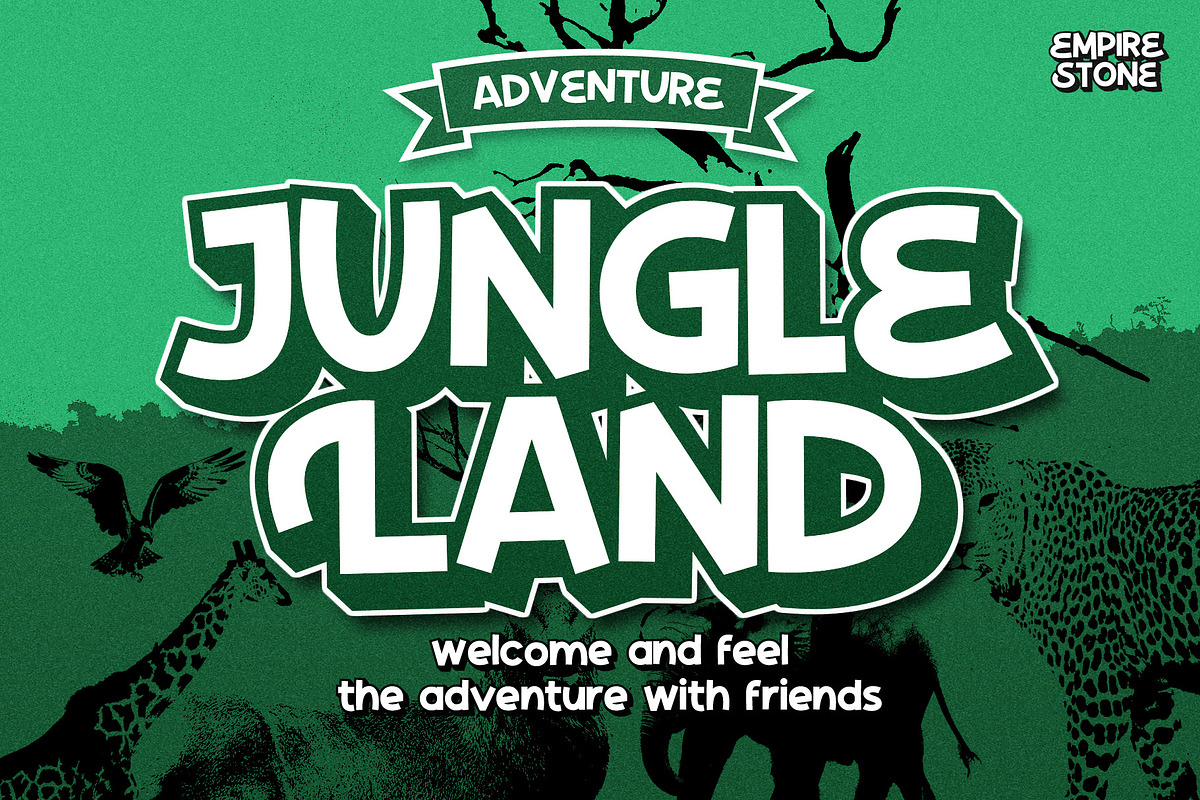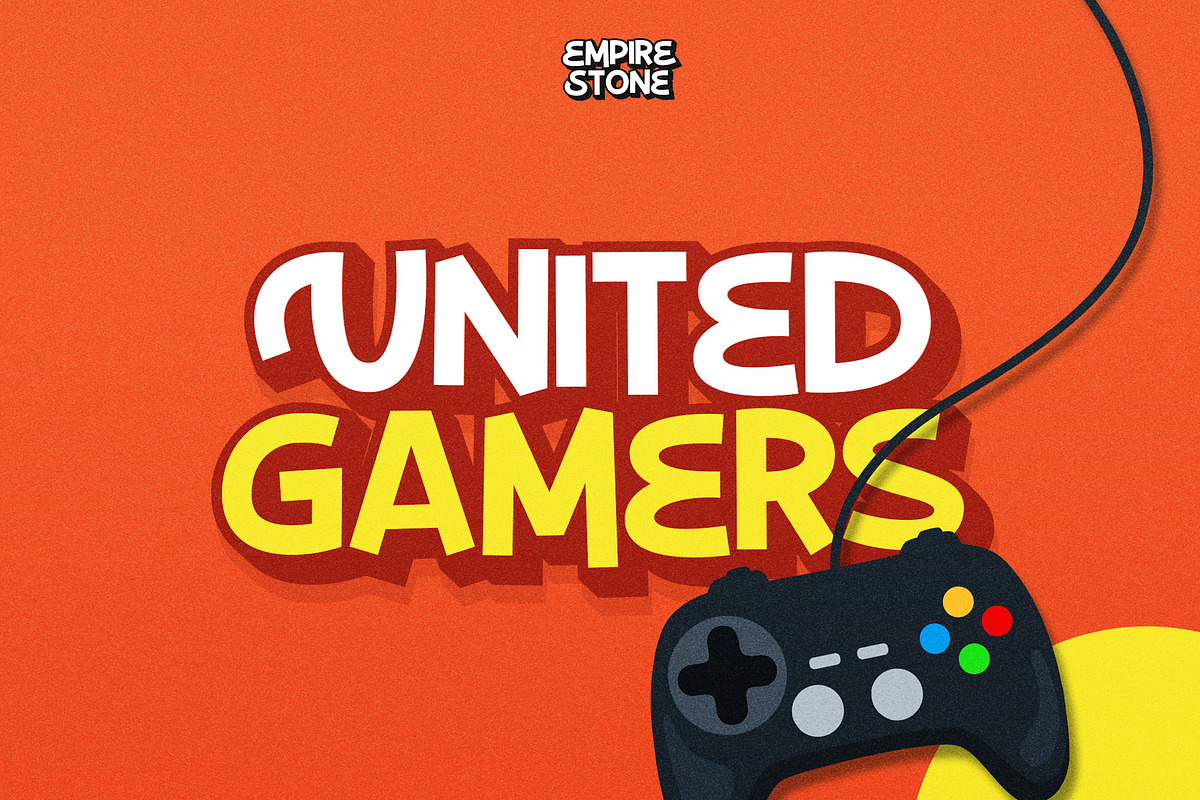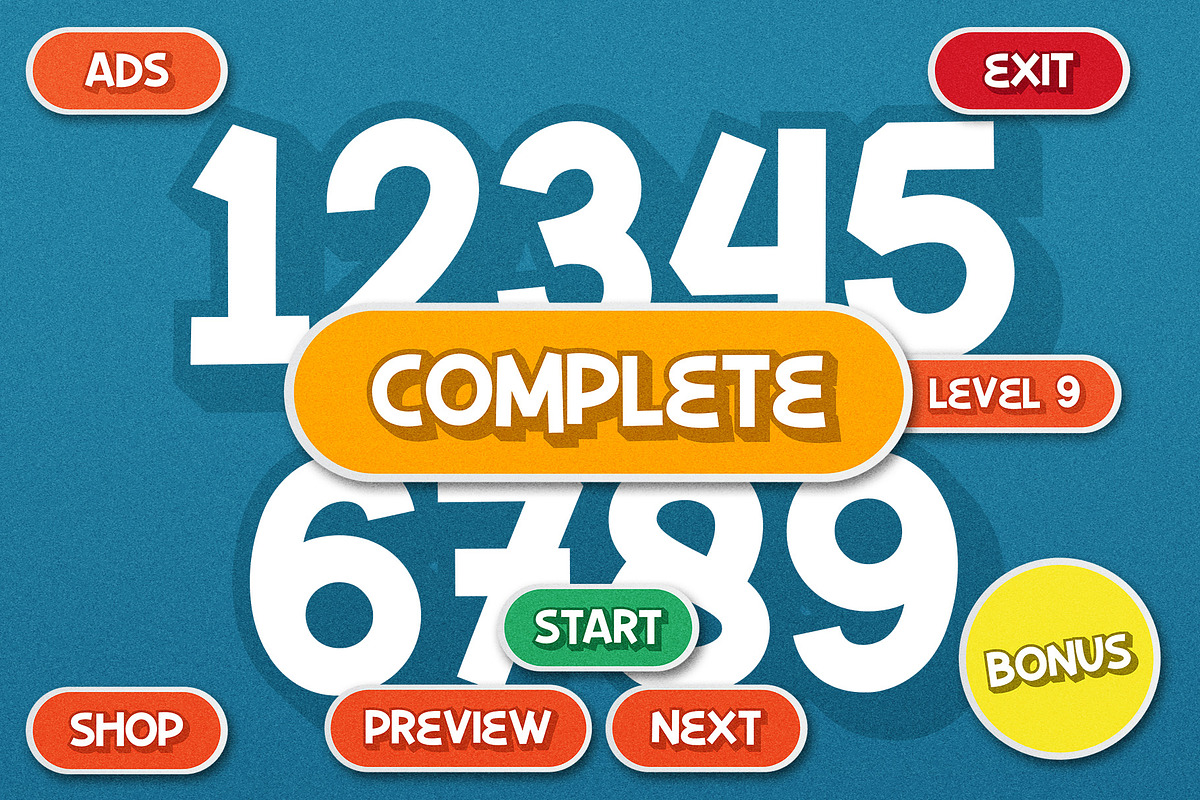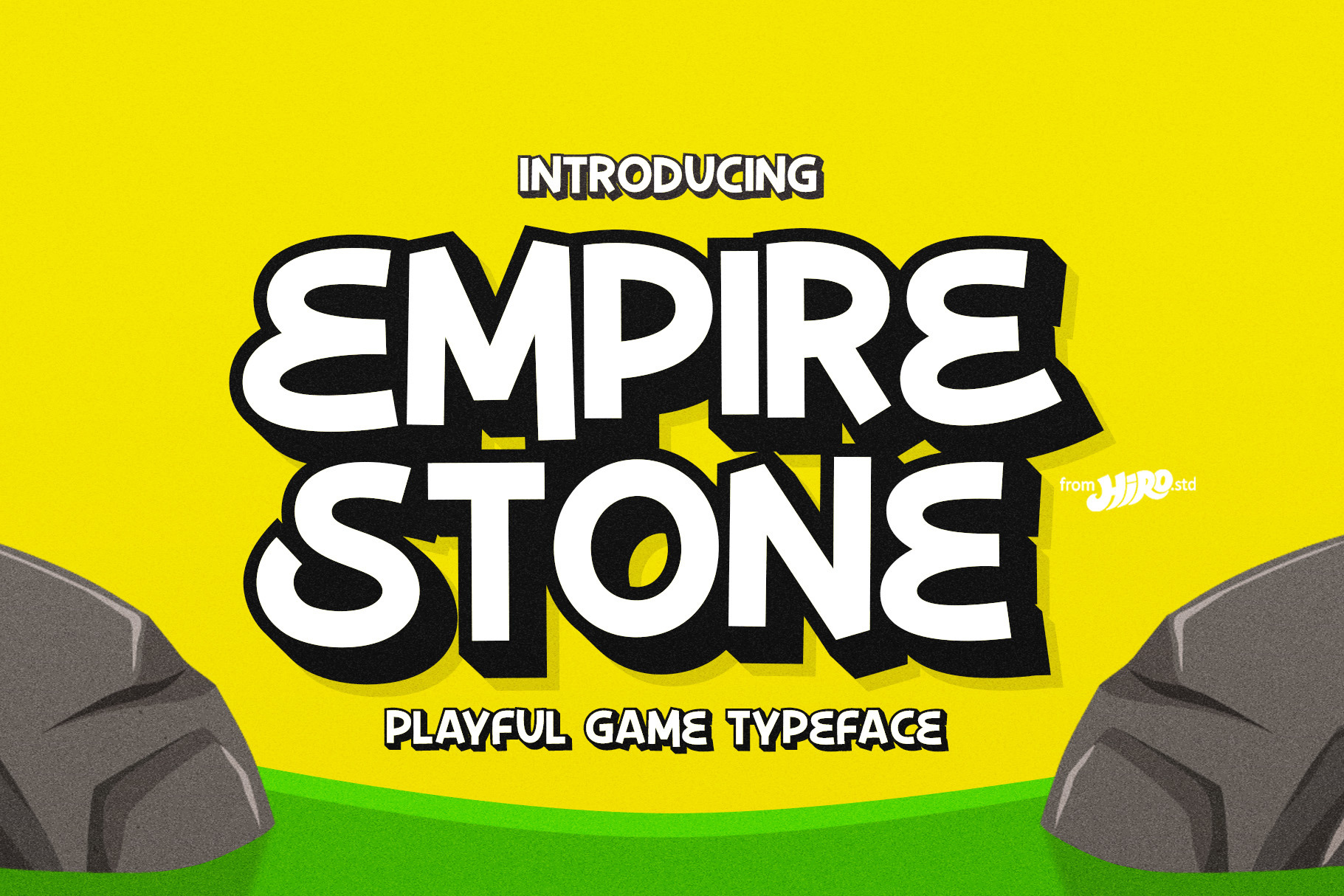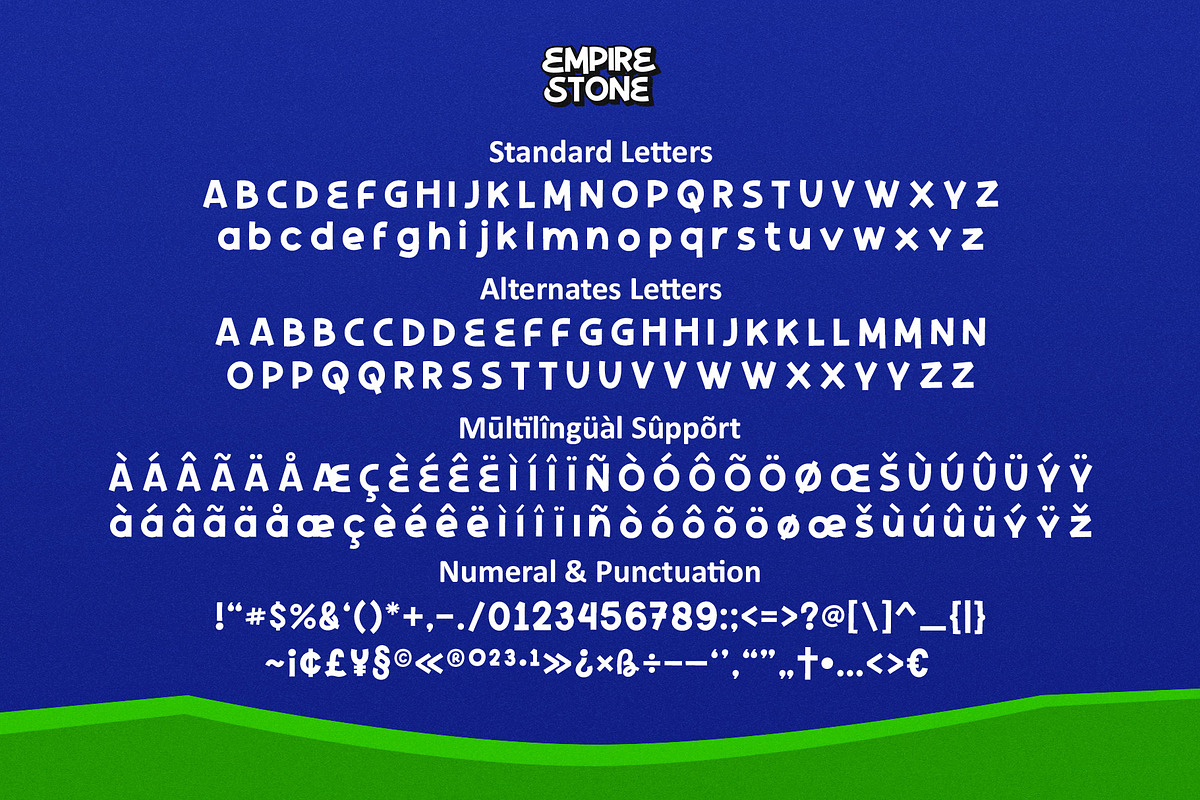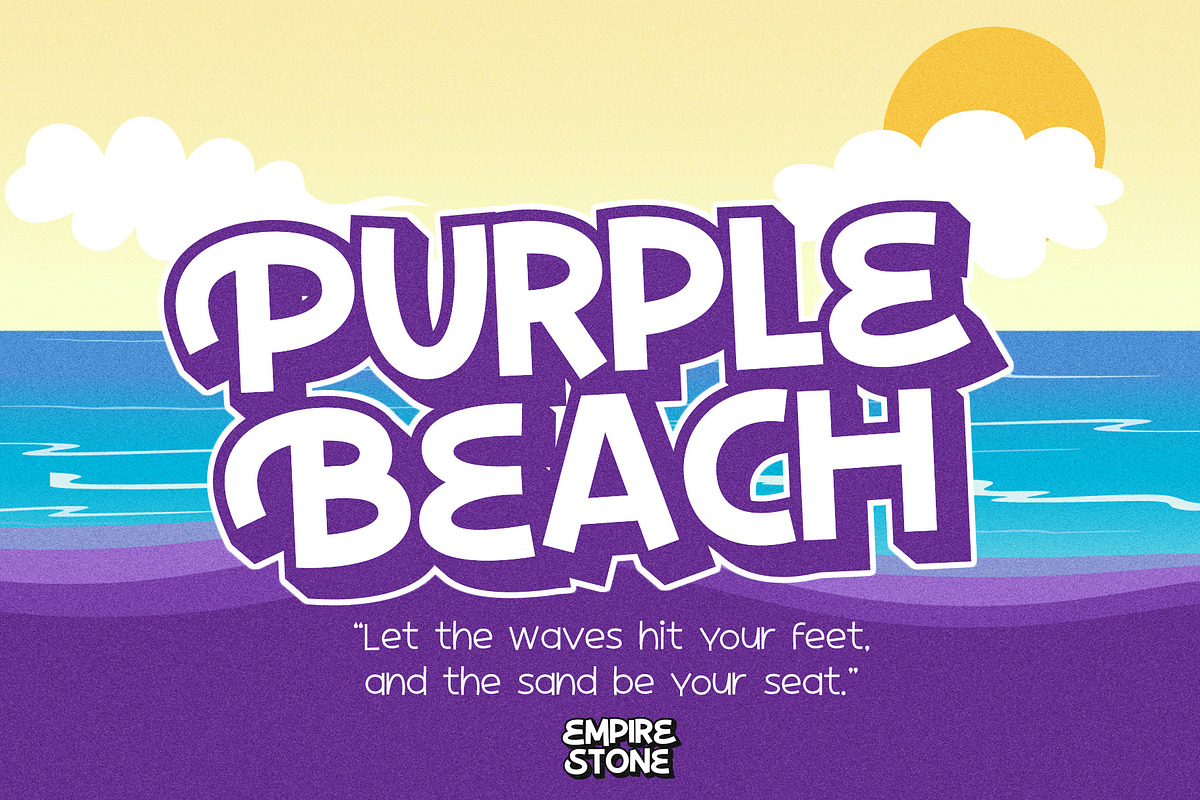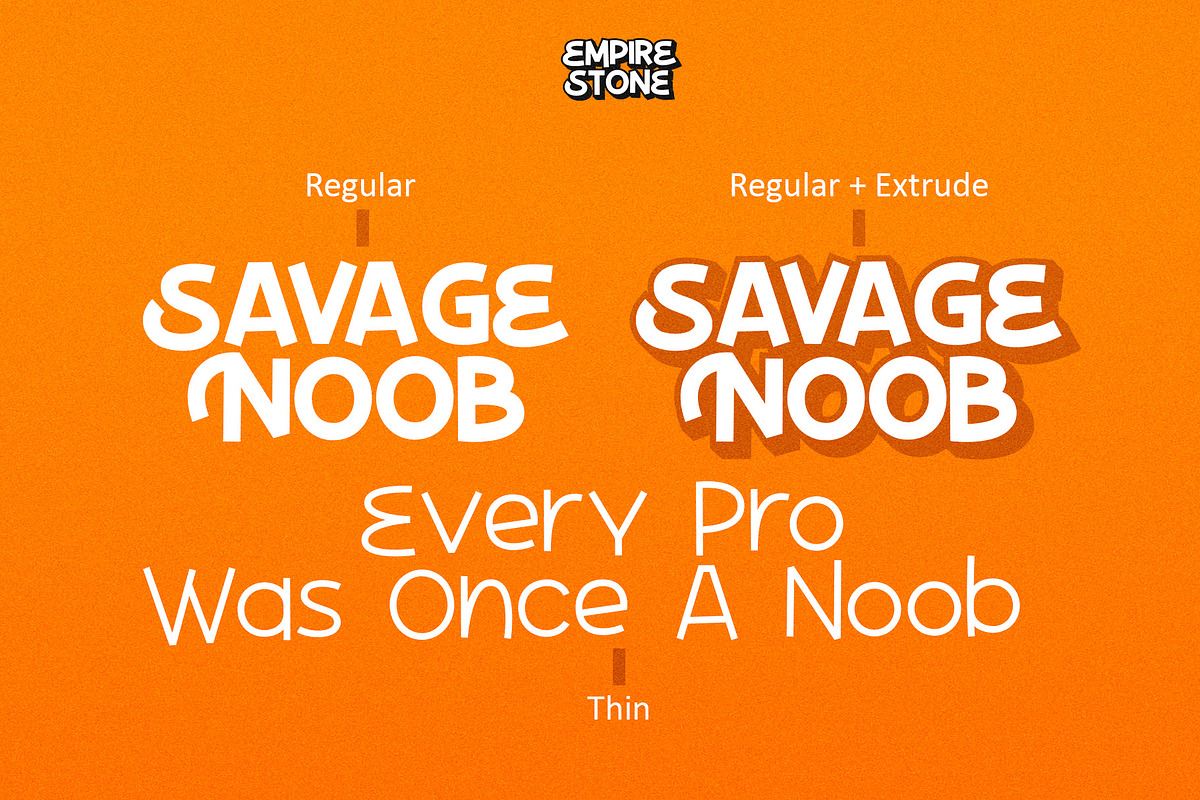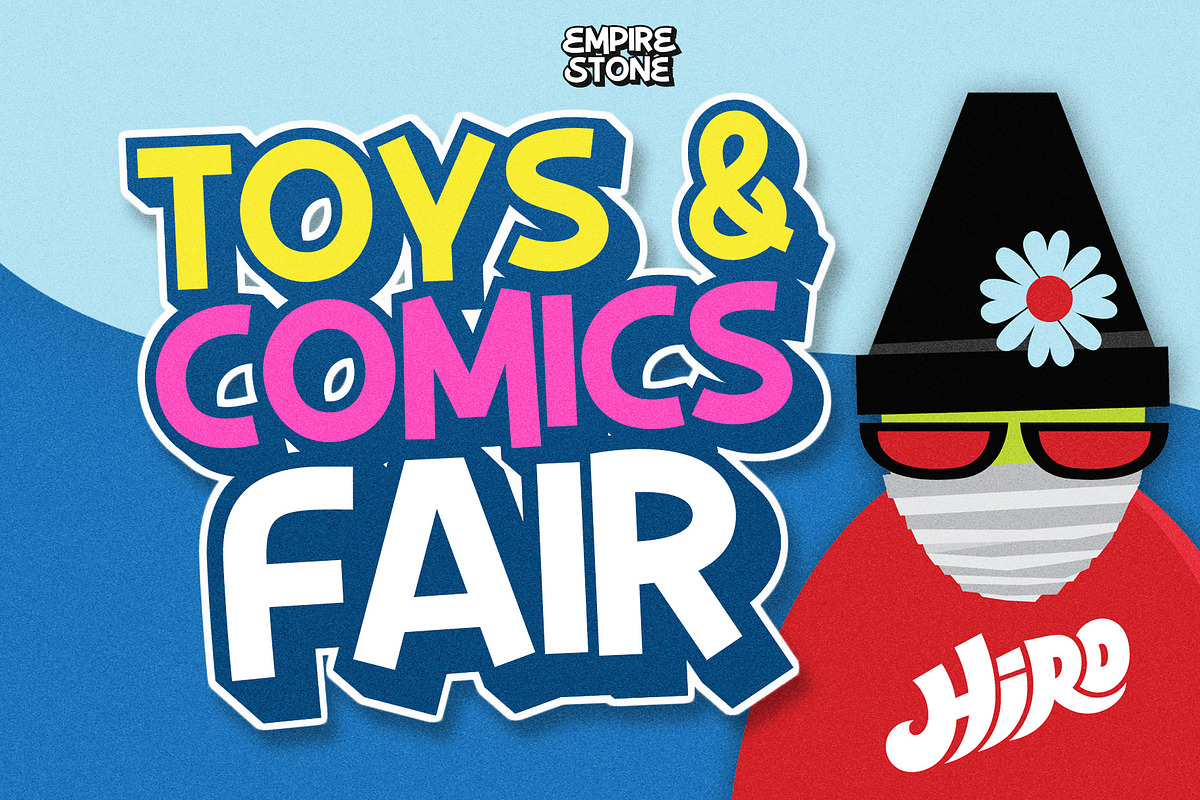
Empire Stone - Playful Game Typeface
Empire Stone is a playful game typeface
Empire Stone consist of :
- Empire Stone Regular
- Empire Stone Extrude
- Empire Stone Thin
This typeface describes about fun, playful, attractive, eye catchy. Empire Stone inspired by gamers around the world.
- Uppercase alternates
USE Empire Stone works great in games, apps, title, poster, comic, packaging, books, logotype and much more.